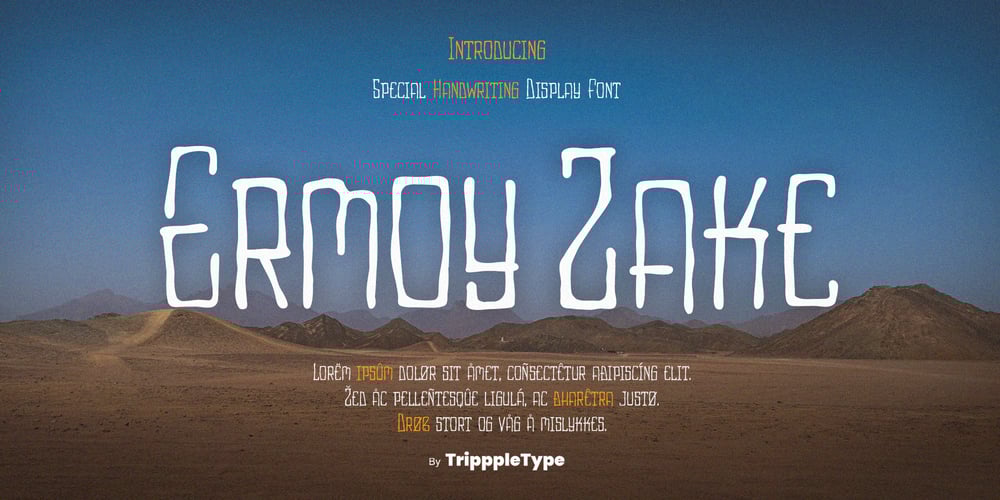
Ermoy Zake Handwritten Font Family was designed by Kang Nur and published by TripppleType. Ermoy Zake Handwritten contains 1 styles and family package options. Ermoy Zake stands out with its bold and geometric handwritten style, making it perfect for visual projects that demand attention. Its distinct shape adds a modern edge to captions, story posts, or creative videos. Whether you’re posting on Instagram or creating TikTok content, Eermoy Zake offers a fresh, modern twist on the traditional handwritten look.Make your mark with Ermoy Zake. Download now and take your designs to the next level with a font that’s as bold and daring as your creativity.